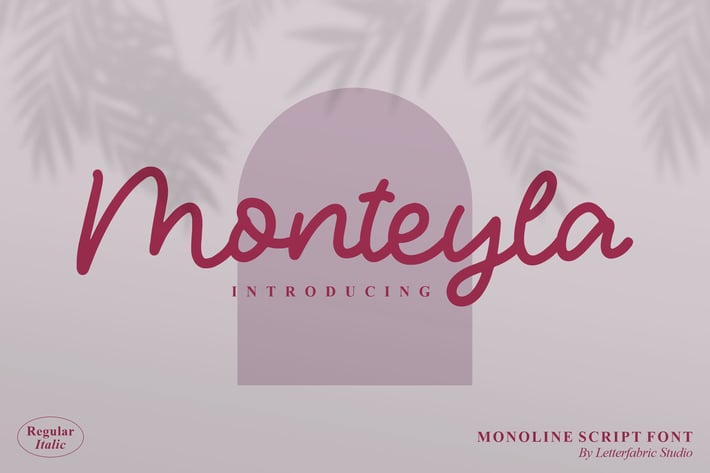
Monteyla Monoline Script Font
Monteyla Monoline Script Font brings a soft, charming handwritten style with clean monoline strokes that feel warm, minimal, and effortlessly stylish. Perfect for creatives who want a modern handwritten look that shines in both digital and printed designs.
Elegant monoline script style
Smooth and consistent stroke weight
Versatile for many design purposes
High-quality handcrafted letterforms
Suitable for both print and digital use
Branding & identity
Social media graphics
Wedding invitations
Logo signatures
Packaging & labels
Personal creative projects
A clean monoline script that blends simplicity and elegance for designs that feel naturally beautiful.